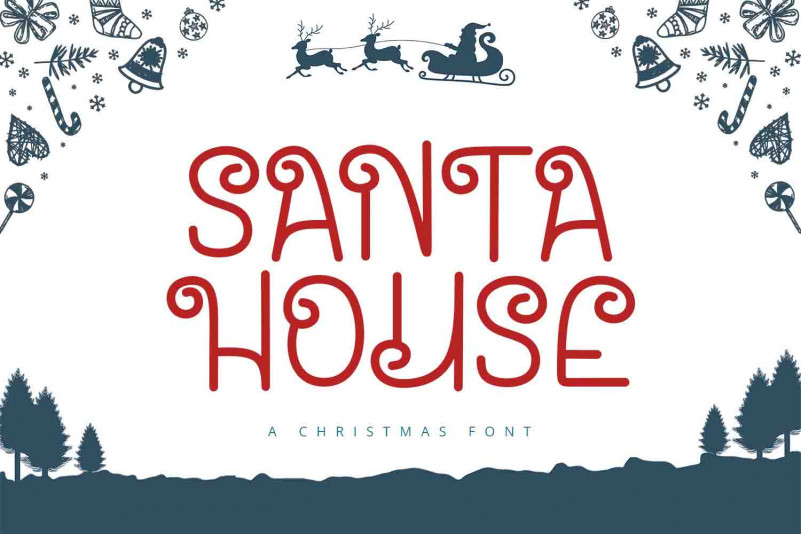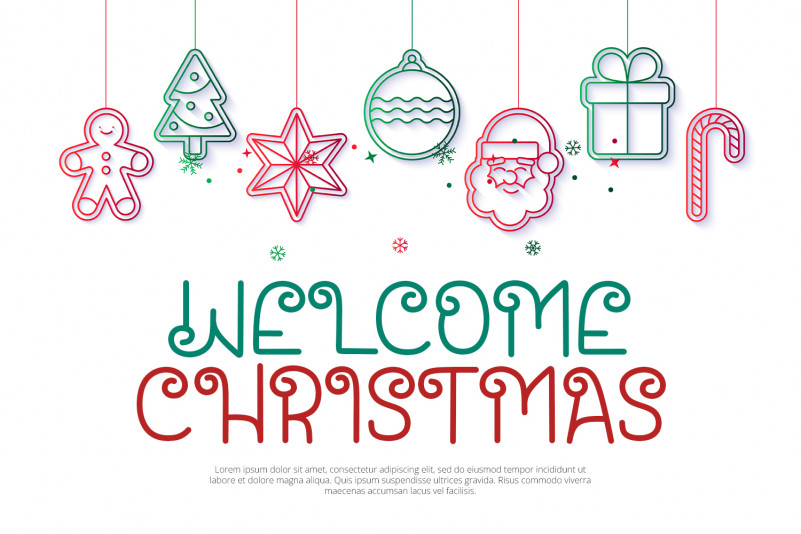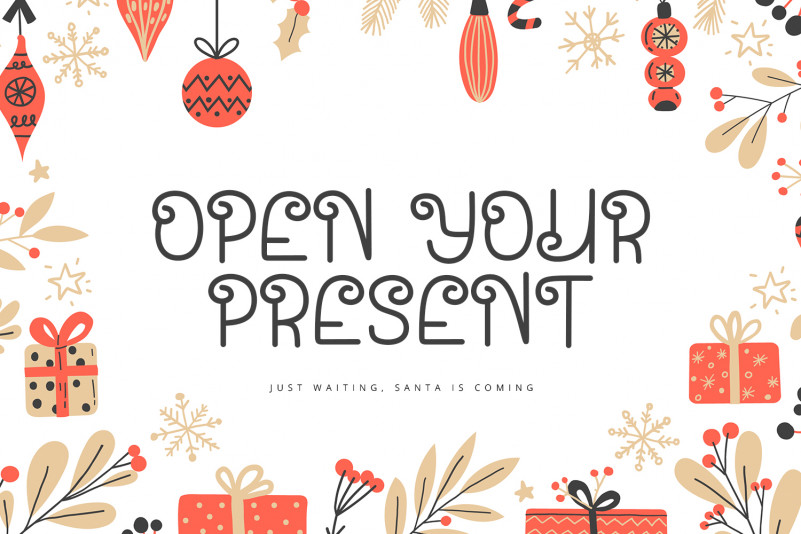
Santa House Font
Santa House Display Font is a display christmas font with cute and unique style. It will be perfectly used for Branding, Logo Design, Lettering, Logotype, Clothing, Poster, magazine, packaging, posters, shopping bags, t-shirts, book covers, photography, special events and other design project.